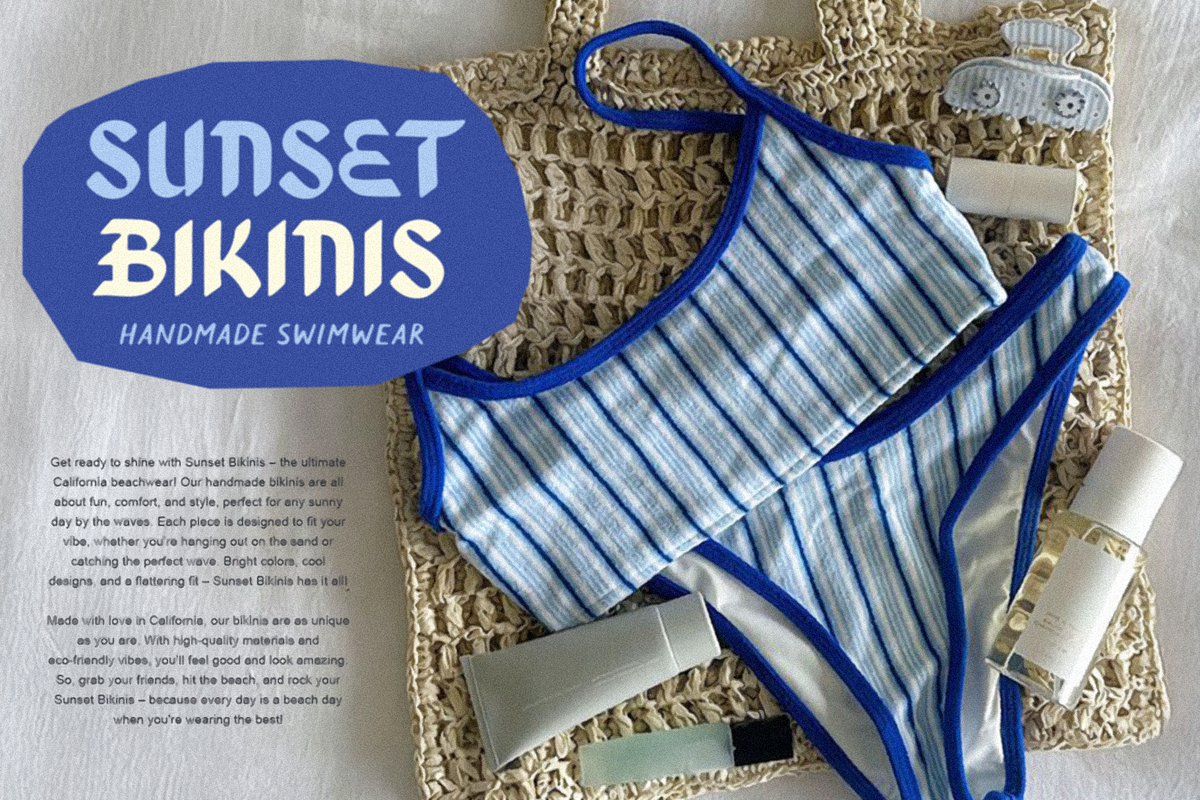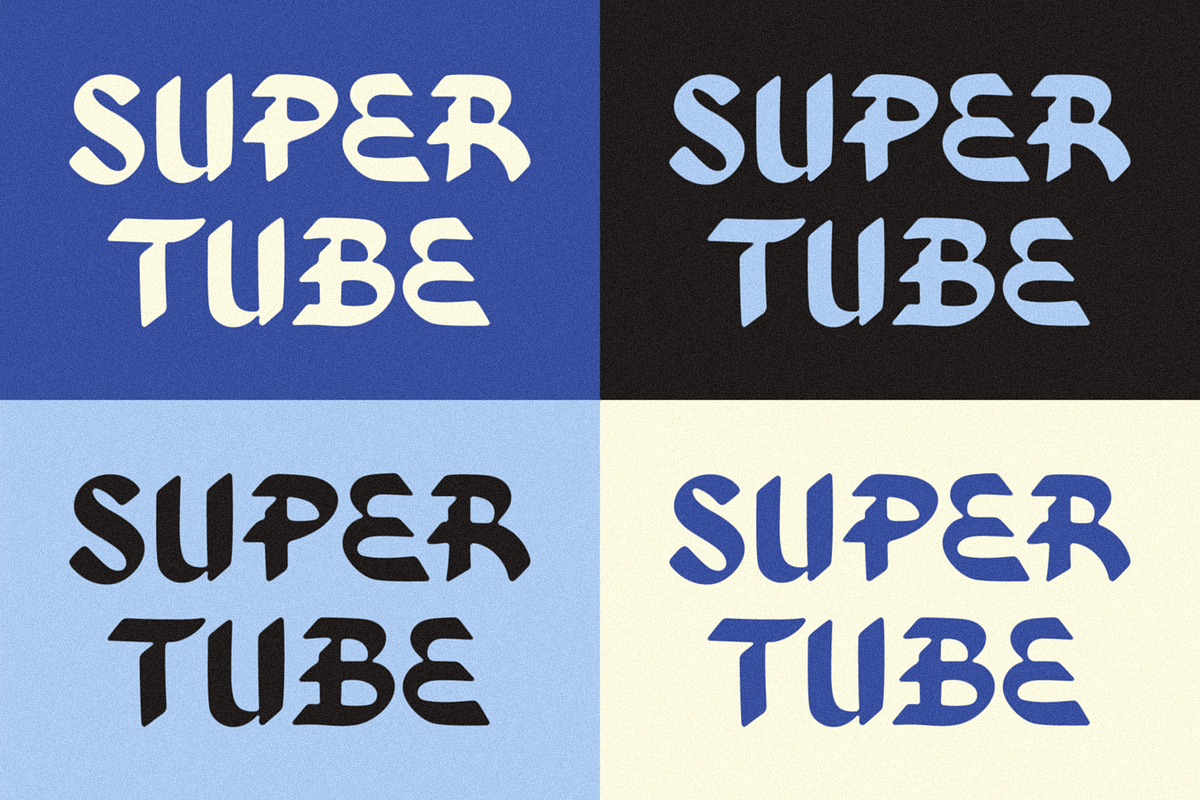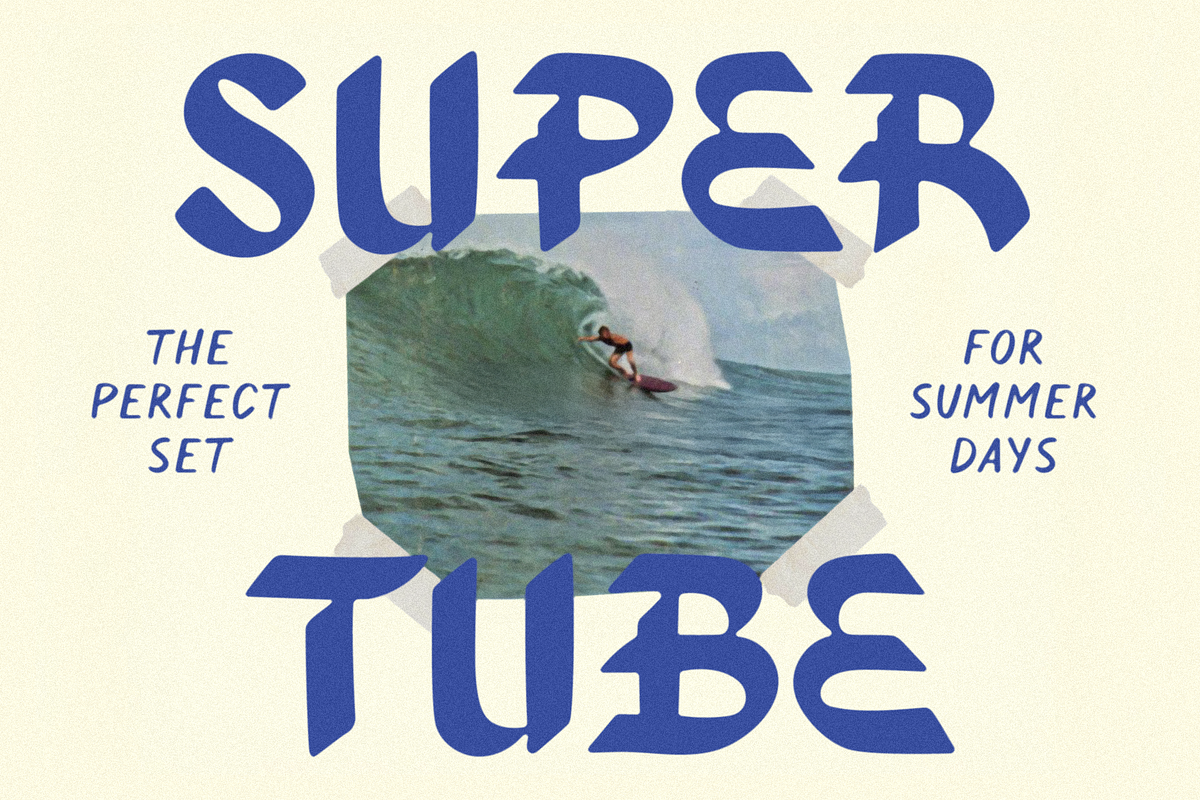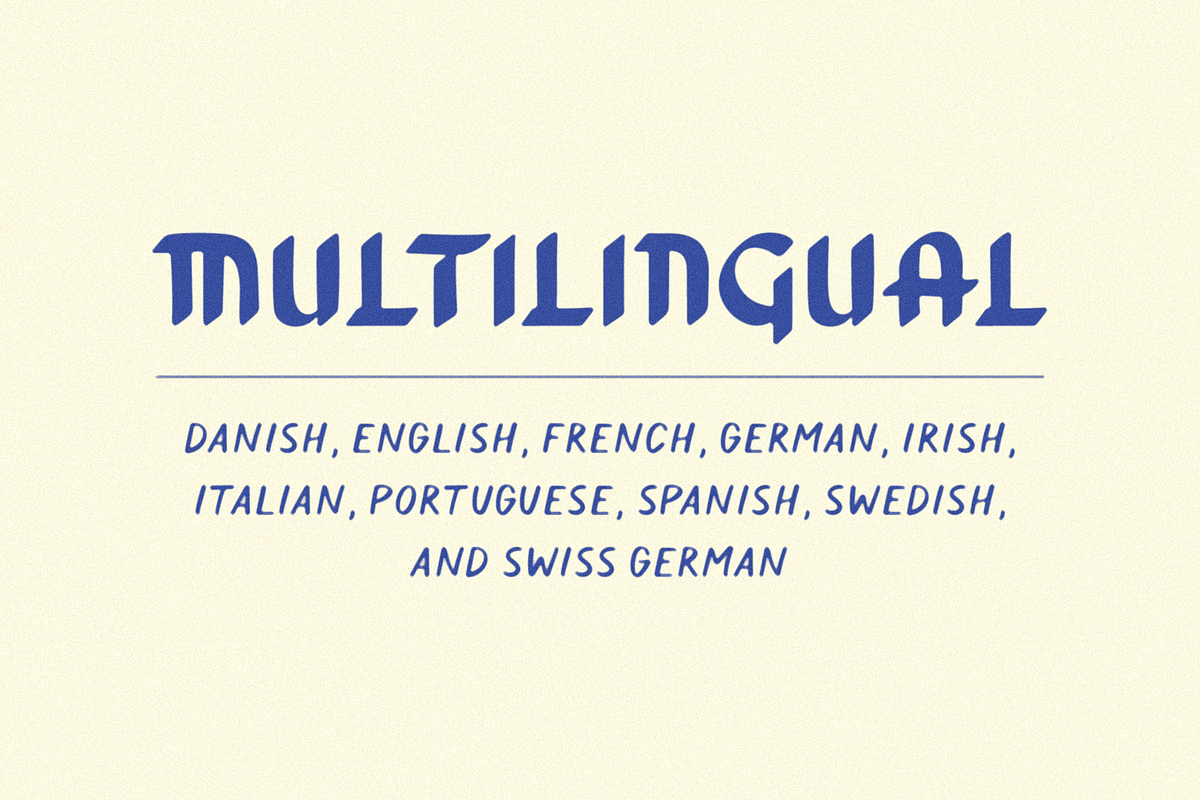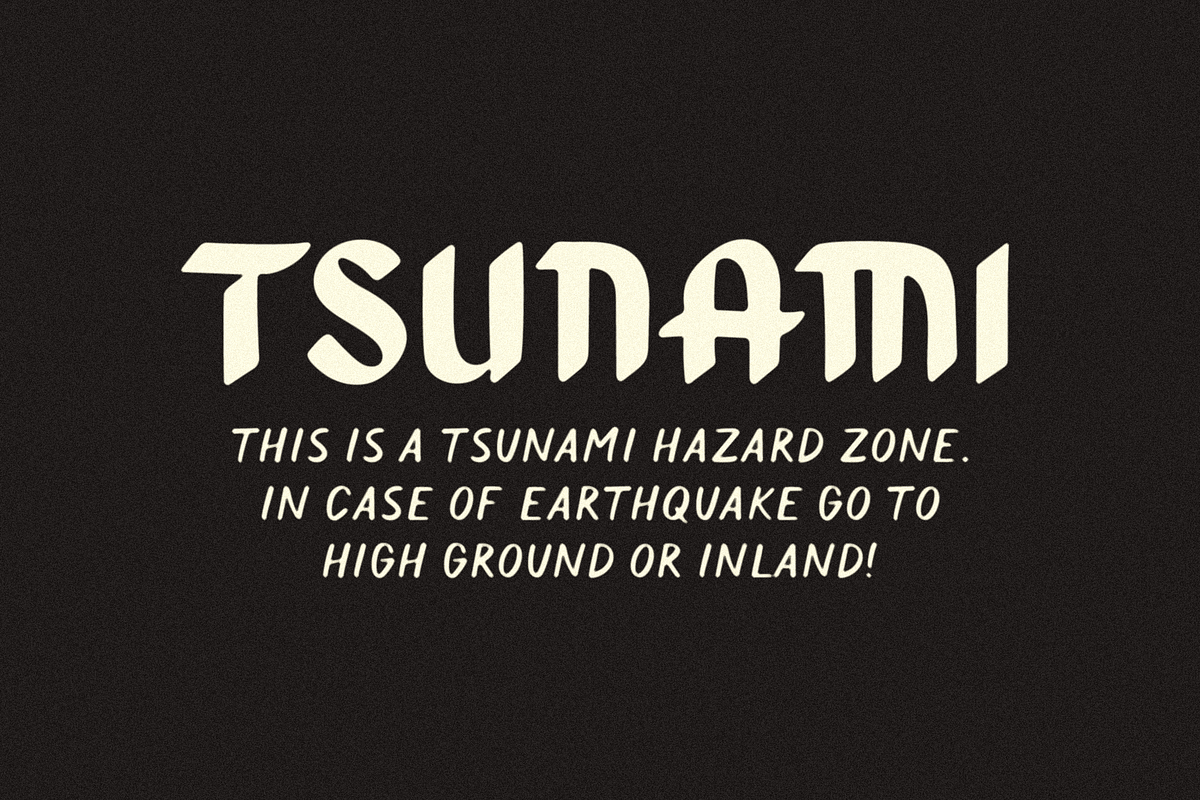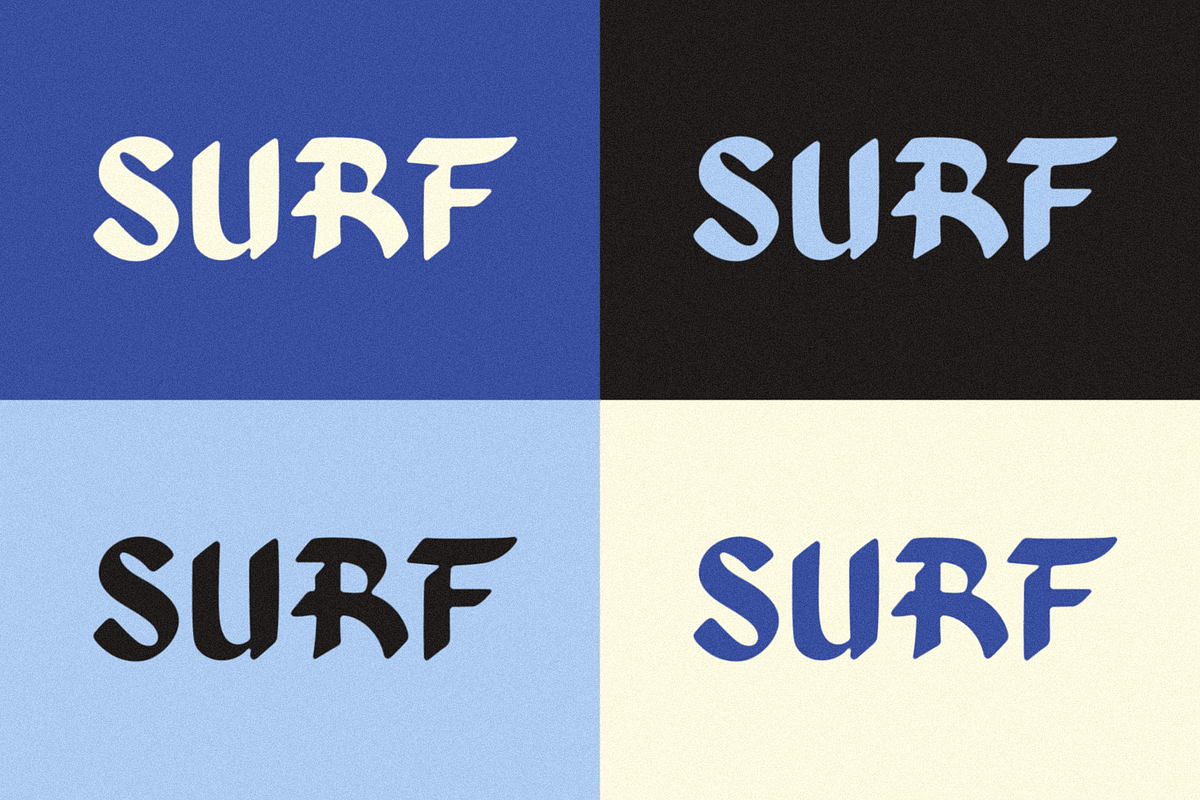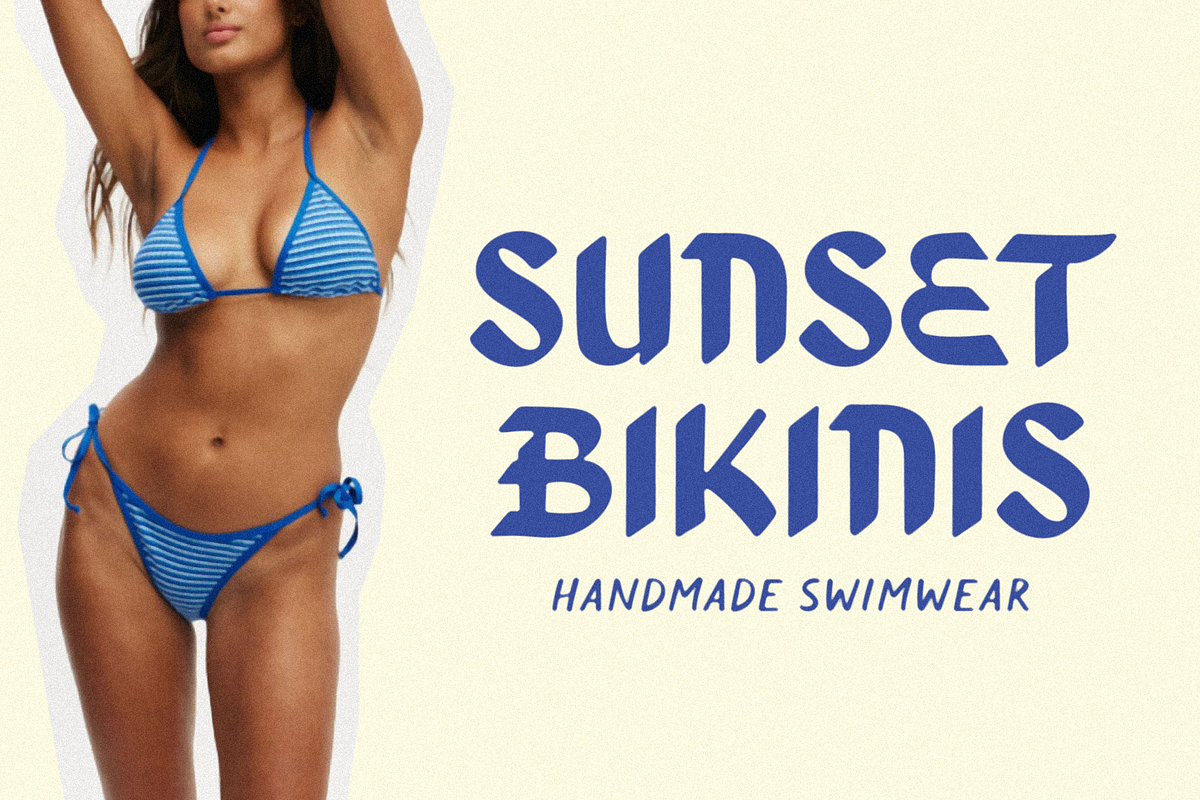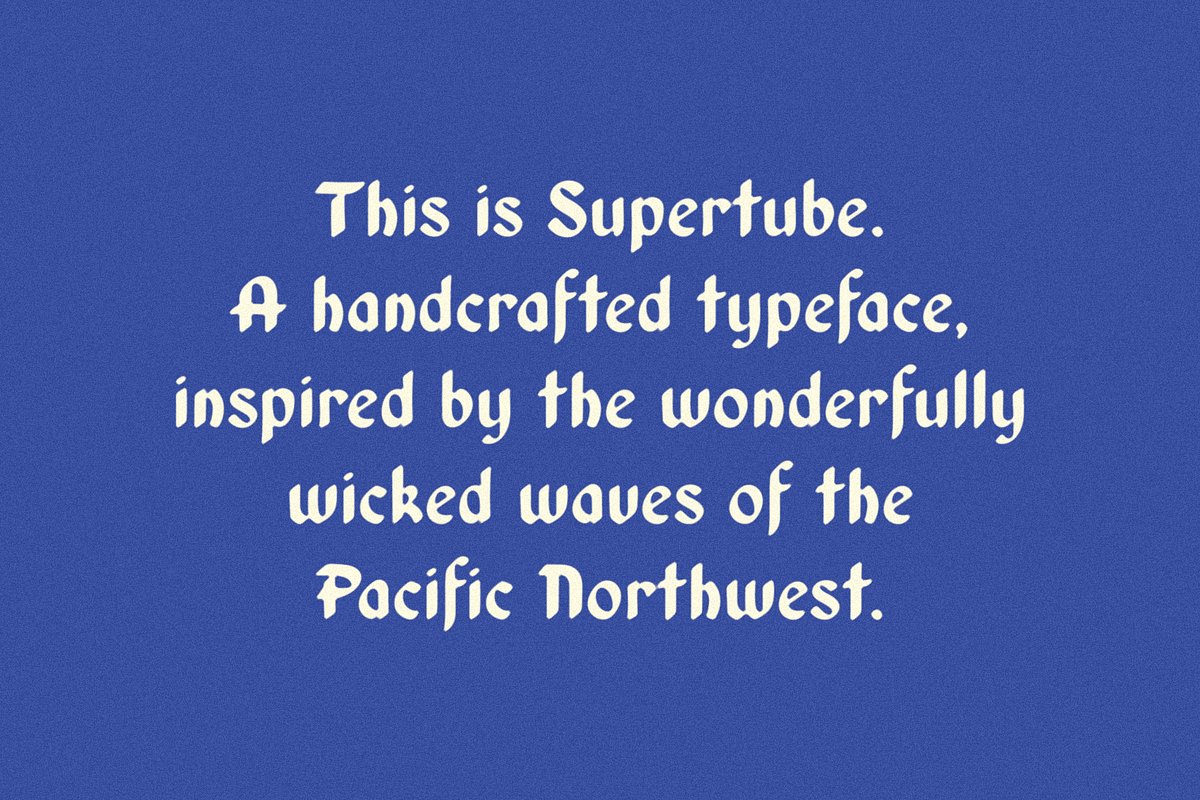
Supertube + Aqua
SUPERTUBE + AQUA – The ultimate surfers font duo, inspired by the PNW coastline. Each letter is handmade by Lauren Kilbane with lots of love and a heavy brush stroke.
Supertube:
- 175 Glyphs: Uppercase, Lowercase, Numbers, Symbols, & Punctuation.
- Language Support: Danish, English, French, German, Irish, Italian, Portuguese, Spanish, Swedish, & Swiss German.
Aqua
- 67 Glyphs: Uppercase ONLY, Numbers, Symbols, & Punctuation.
- No Language Support: English Characters ONLY